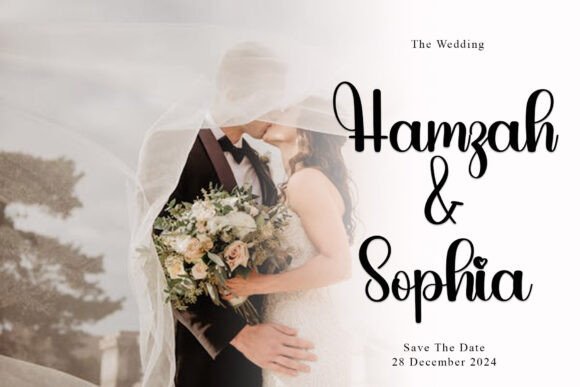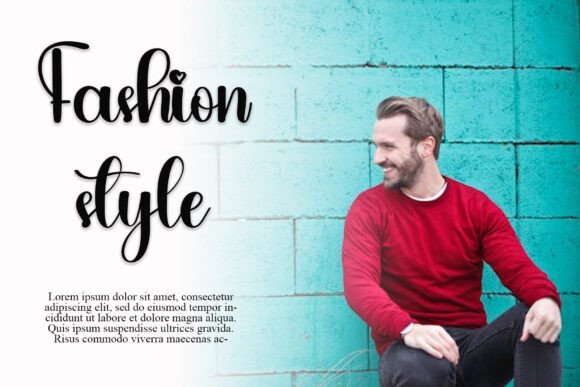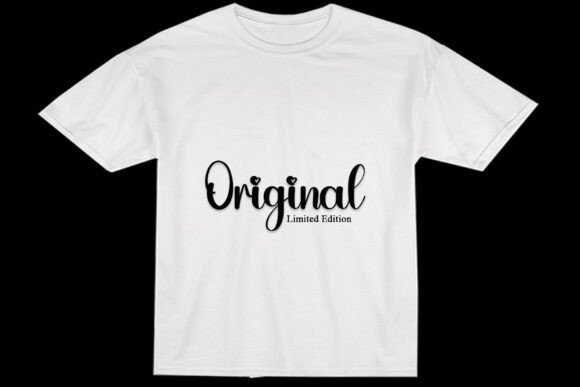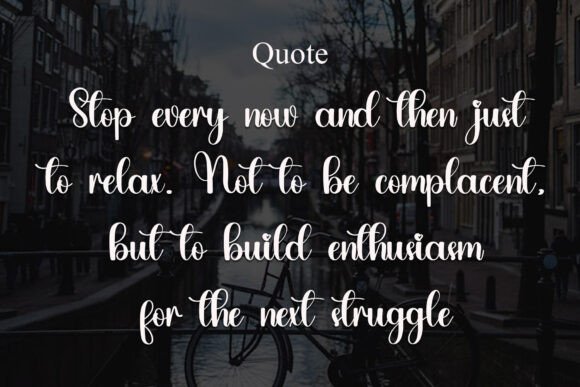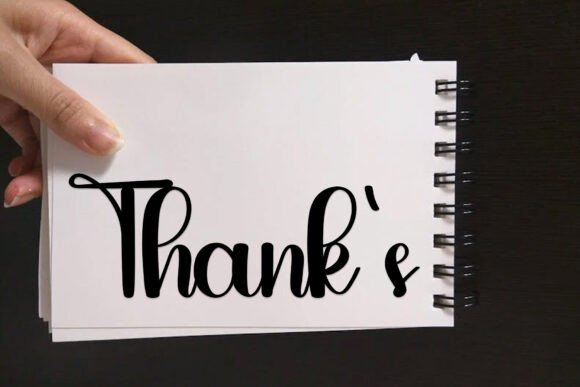
The Elegance of Calligraphy Font: A Designer’s Delight
I’ll never forget the time I was working on a wedding invitation project, and my client asked for a font that would make their special day feel truly unforgettable. I scoured the internet, tried out countless fonts, but nothing seemed quite right. That was until I stumbled upon the Calligraphy Font – a stylish and incredibly elegant script font that instantly captured the essence of the occasion. ✨
So, what makes the Calligraphy Font so special? Let’s dive into the good stuff and a few quirks I’ve discovered. 😊
- ✨ Elegant and stylish: This font is perfect for adding a touch of sophistication to any design.
- ✅ PUA encoded: Easily access all the amazing glyphs and ligatures without any hassle.
- 🌈 Versatile: Works beautifully on wedding invitations, thank you cards, quotes, greeting cards, logos, business cards, and more.
- 🤔 Limited use on digital platforms: While stunning in print, the font’s intricate details might not display as well on digital screens.
- ⚠️ Requires OpenType features: To get the most out of this font, you’ll need to use software that supports OpenType features.
The Story Behind Calligraphy Font
The Calligraphy Font was inspired by the art of traditional calligraphy. Its creator aimed to bring the elegance and sophistication of handwritten calligraphy to digital designs. The result is a font that feels both classic and modern, perfect for a wide range of creative projects.
Q: What is PUA encoding, and how does it benefit the Calligraphy Font?
A: PUA (Private Use Area) encoding allows for easy access to a font’s advanced features, such as glyphs and ligatures. This means you can use the Calligraphy Font to create beautiful, intricate designs without needing specialized software.
Q: Is the Calligraphy Font suitable for digital use?
A: While the Calligraphy Font is stunning in print, its intricate details might not display as well on digital screens. However, it can still be used for digital projects, such as website headers or social media graphics, if you’re looking for a elegant and sophisticated touch.